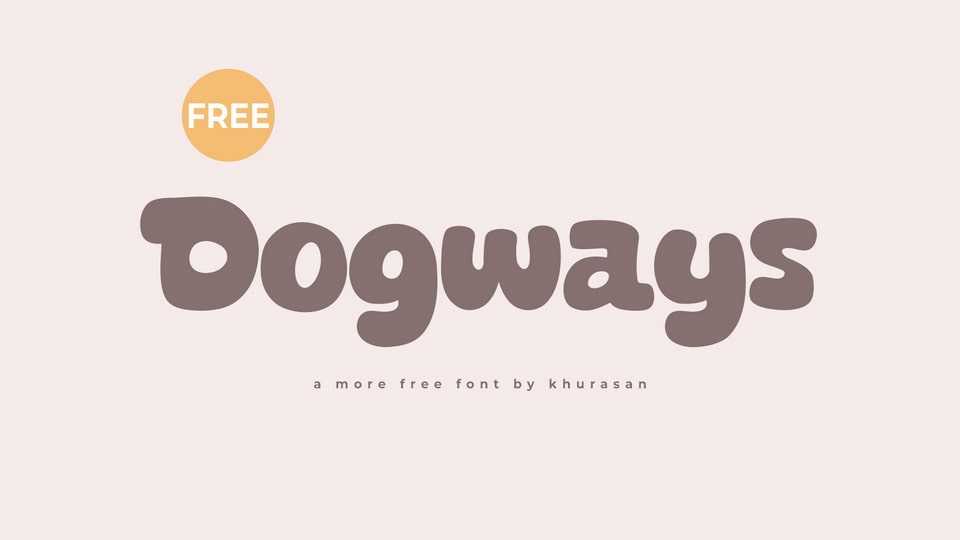
Download Dogways font, a fun and playful cartoon typeface designed to infuse your projects with a delightful and approachable charm. Crafted with rounded letterforms, the font radiates a friendly energy, adding a touch of warmth and playfulness to your typographic creations.